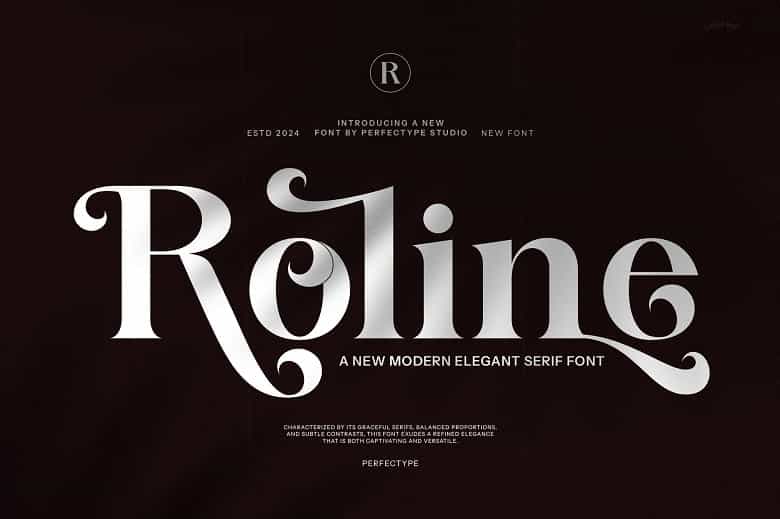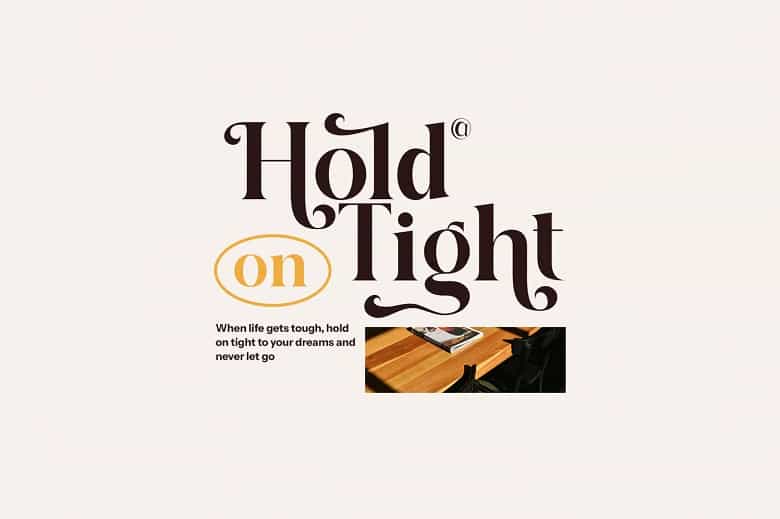
Discover Roline Font, part of the Serif collection—a versatile and unique font perfect for adding a personal touch to your projects. Download it for free and enjoy crafting designs with style, from invitations to social media posts. This font is available exclusively for personal use, giving you the freedom to create without limits. Unlock your creativity with Roline Font today!
This font named Roline is the best serif font for all the branding and logo designing task as it looks very sophisticated. This type of Serif font is elegance and luxury, thus suitable for all your design needs. This type of font is ideal for all your different tasks, branding, logos, social media, ads, labels, packaging, weddings, invite designs, stationery and any project that you want to be professionally done.